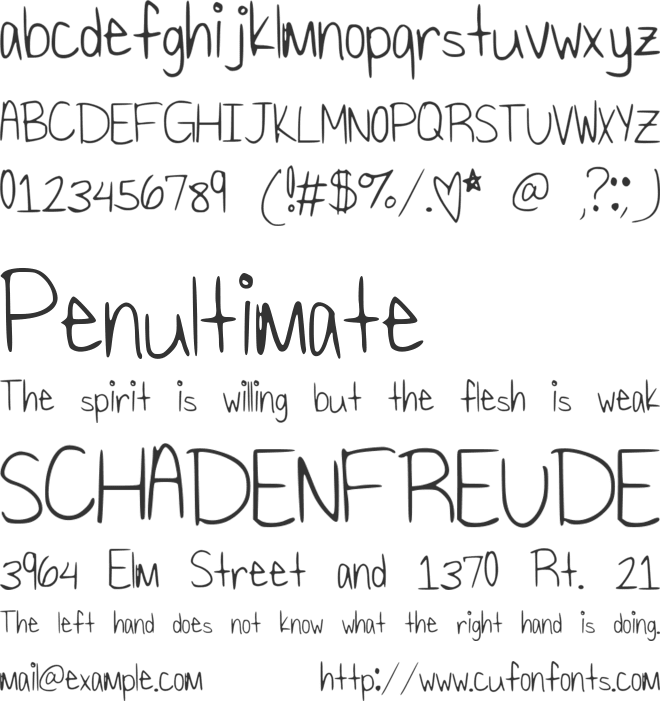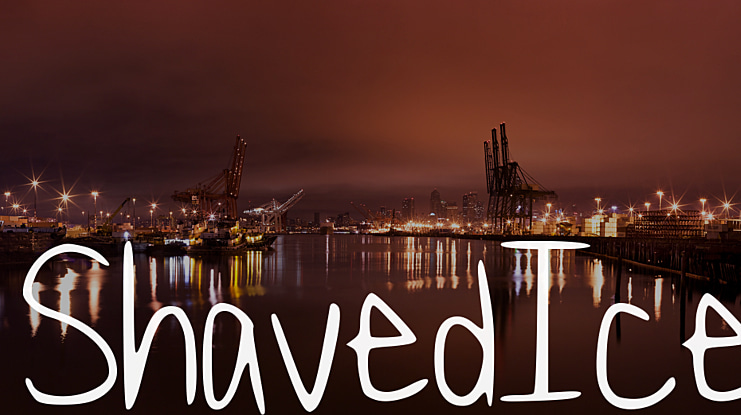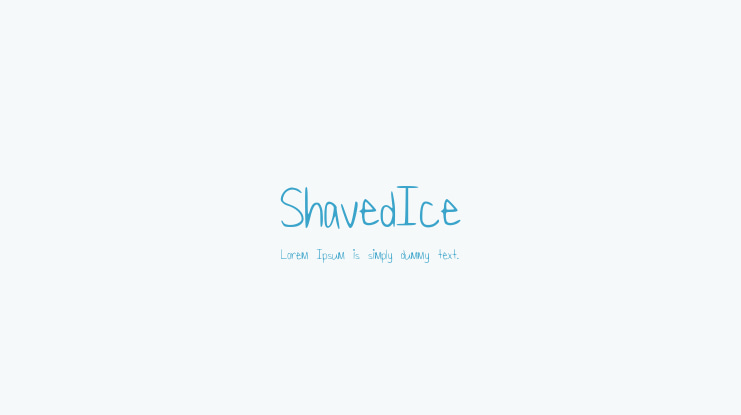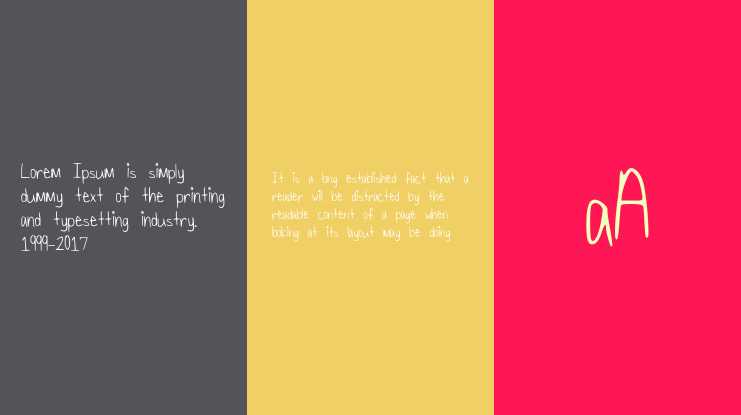
ShavedIce Font
One of my first fonts that I scribbled with my handwriting.
(I apologize that most of the symbols are missing. Maybe I'll make more fonts and include everything.)